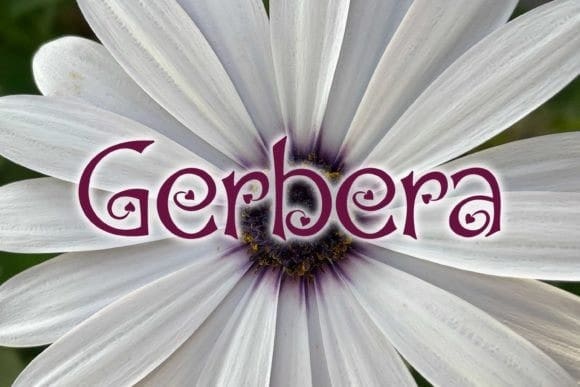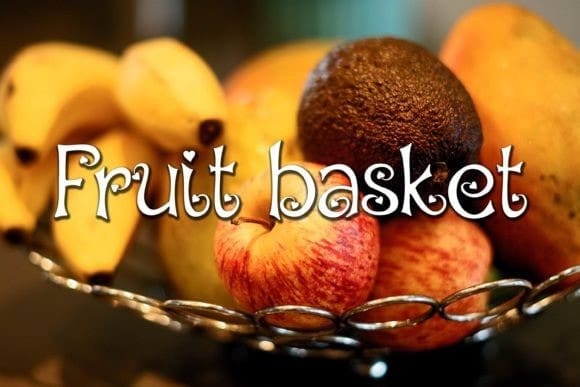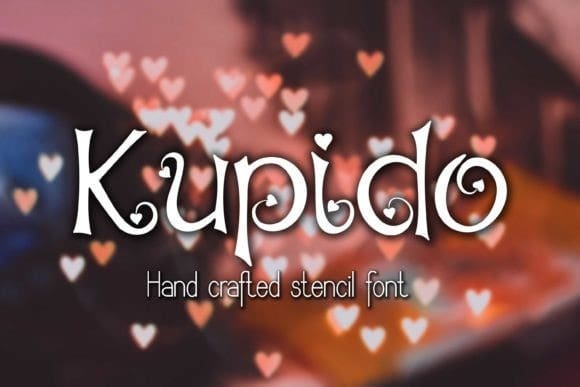
Kupido Display Font
Kupido Display Font is a heart-decorated stencil font without closed loops on the characters. It will add a distinct look to any design project!